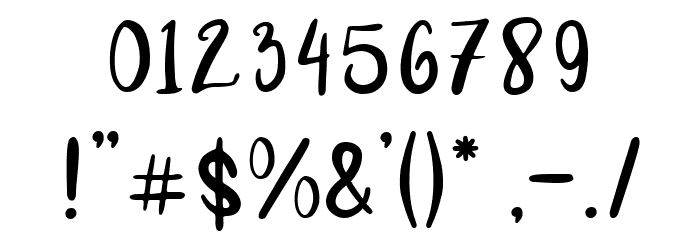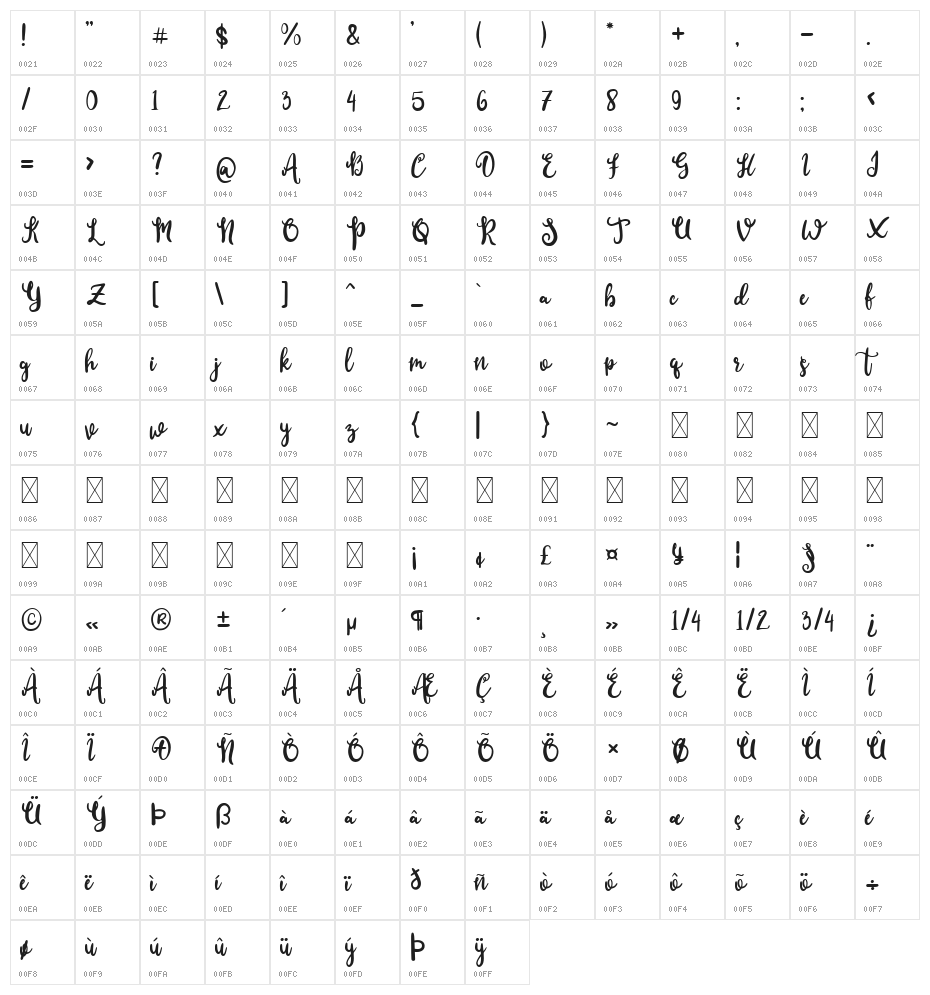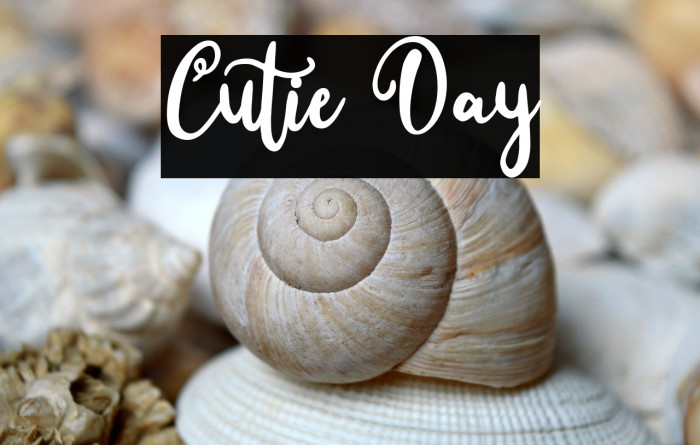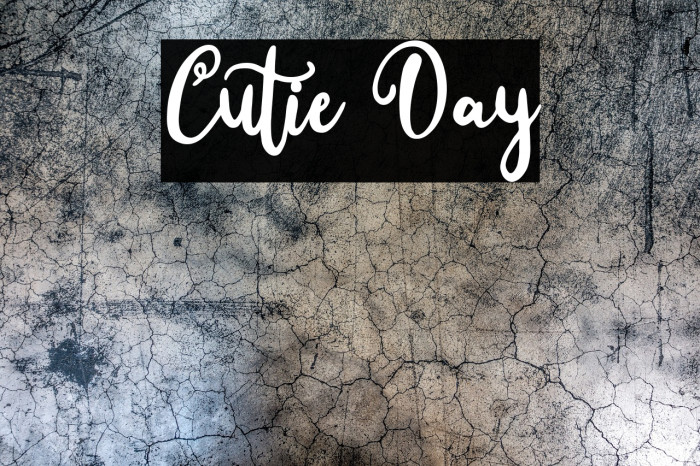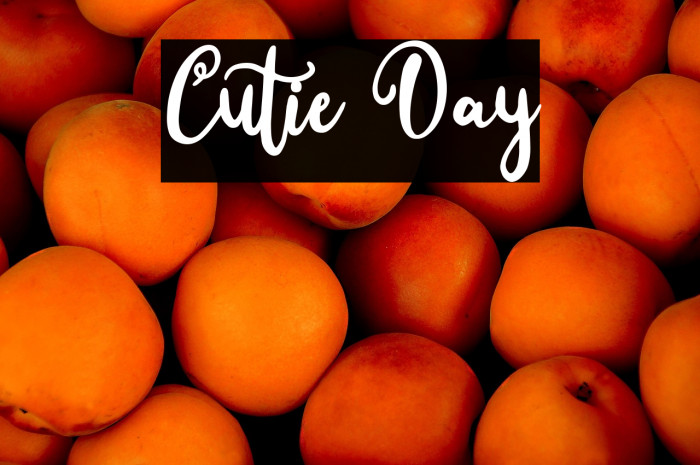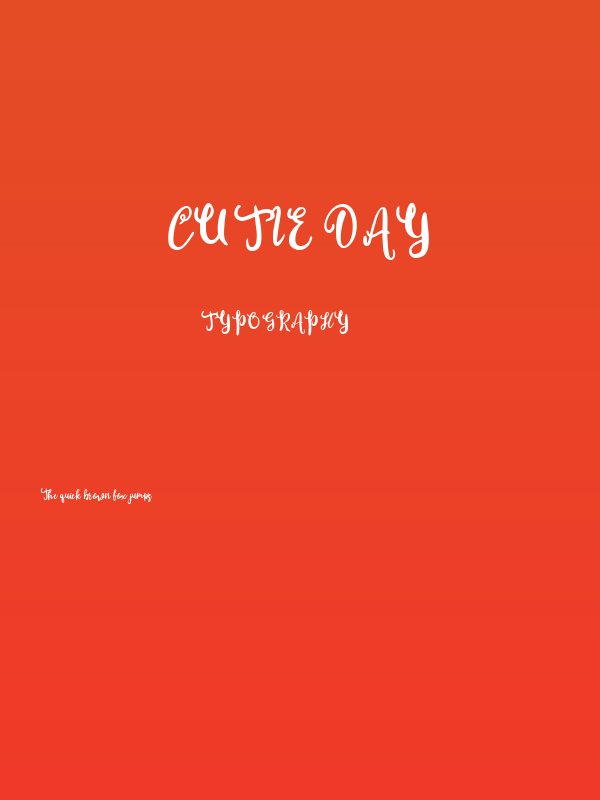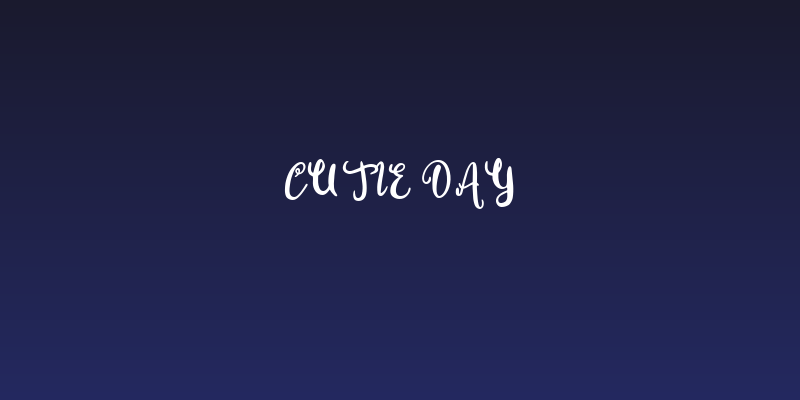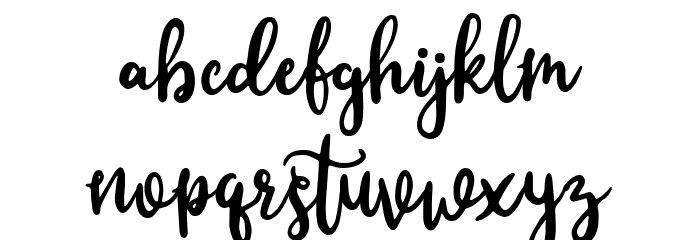
Cutie Day Font
Cutie Day Description
This font exhibits a playful and whimsical style, characterized by its bold, flowing script. The letters are interconnected with smooth, rounded curves, giving it a handwritten appearance. The uppercase letters are particularly ornate, with flourishes that add a touch of elegance. The lowercase letters maintain a consistent flow, enhancing readability while retaining a casual charm. The numerals are clear and distinct, matching the overall playful aesthetic. Special characters are creatively designed, complementing the font's lively personality. This font is perfect for projects that require a fun and engaging look.